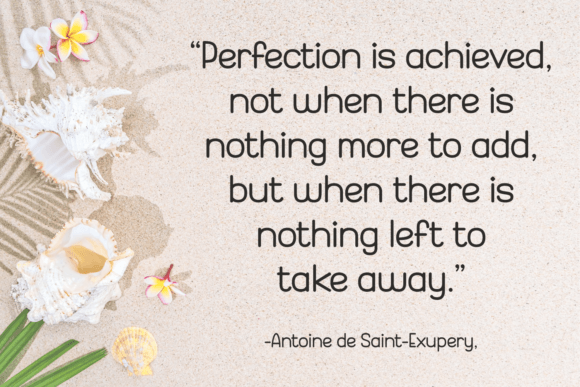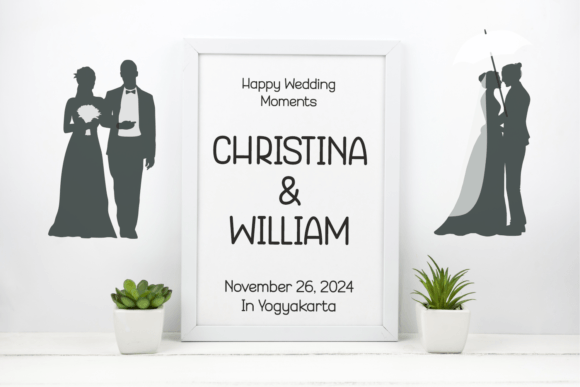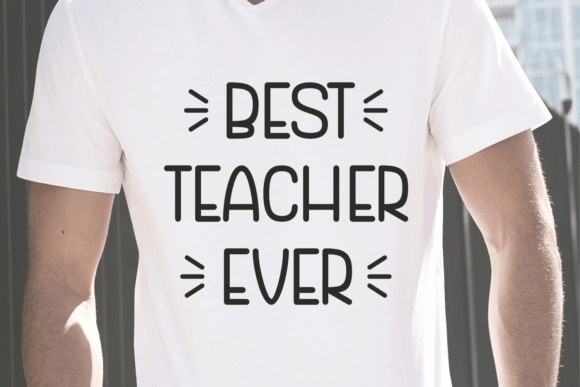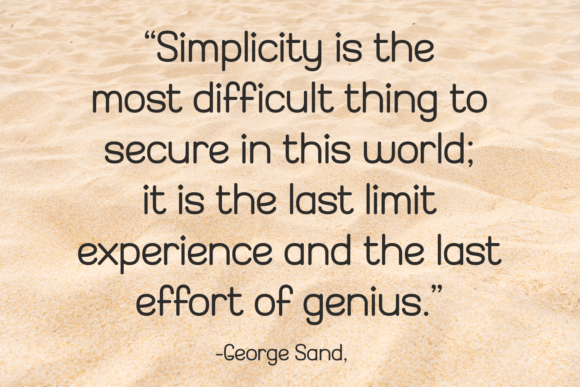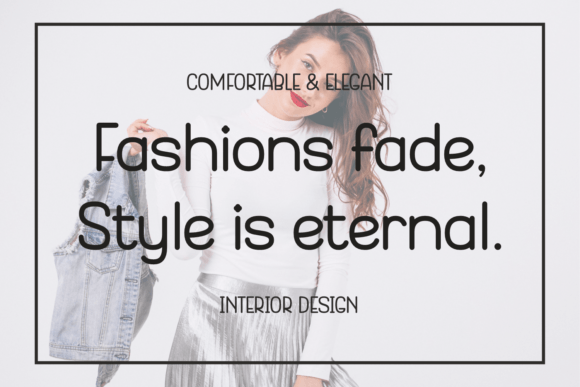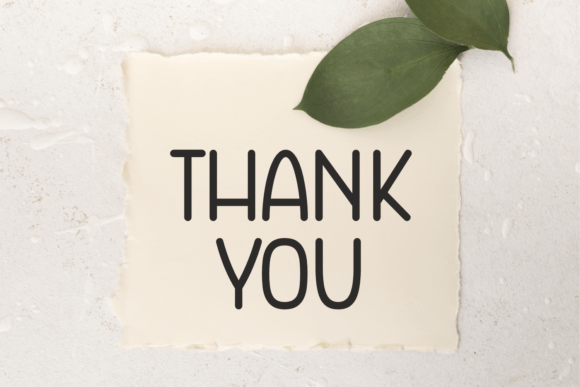
Introduction to Creative Rapunzel Font
Introducing Creative Rapunzel, a lovely and timeless handwritten font.
Key Features of Creative Rapunzel Font
Why Choose Creative Rapunzel Font?
Creative Rapunzel Font offers exceptional quality and versatility, making it a valuable addition to your design toolkit. Whether you’re creating for personal projects or commercial use, Creative Rapunzel Font delivers professional results.